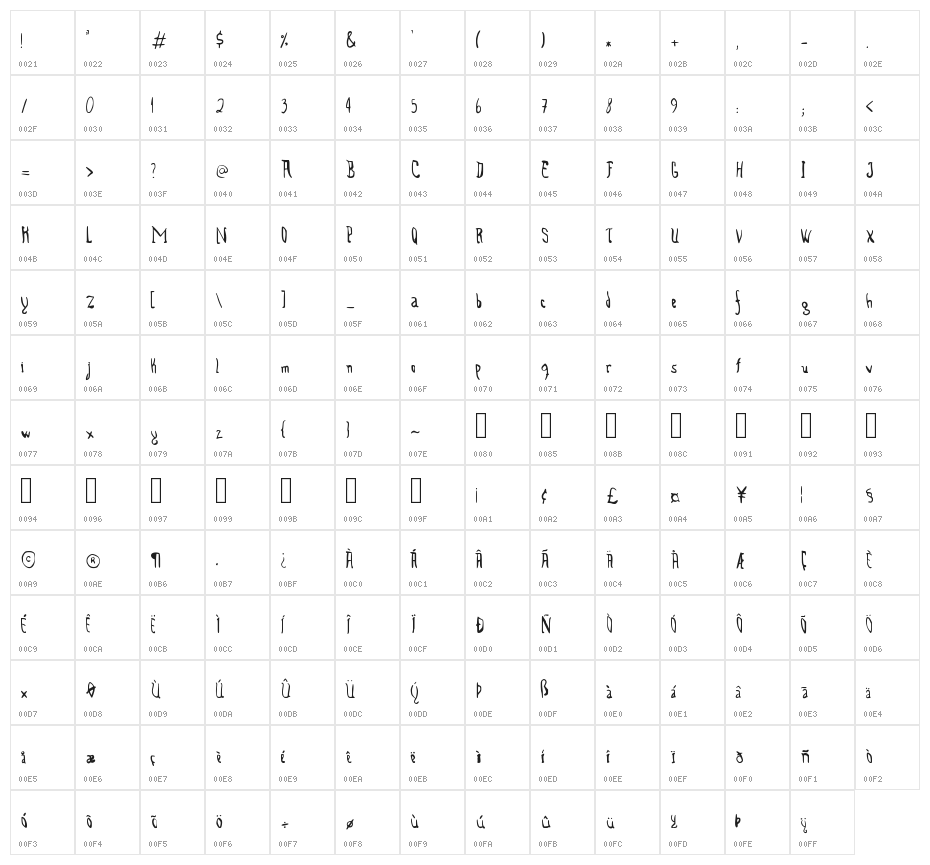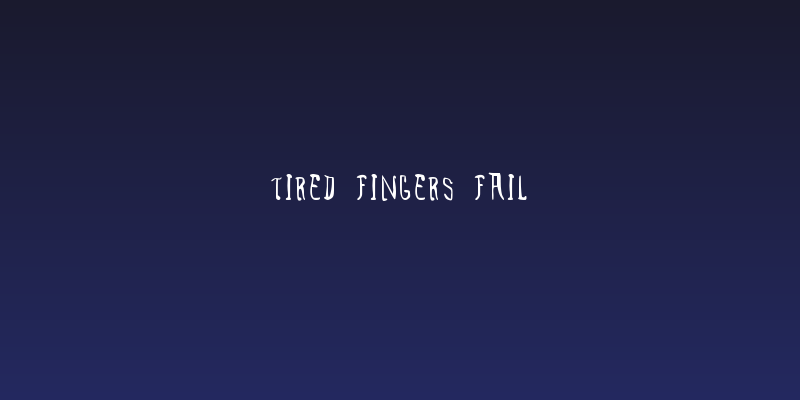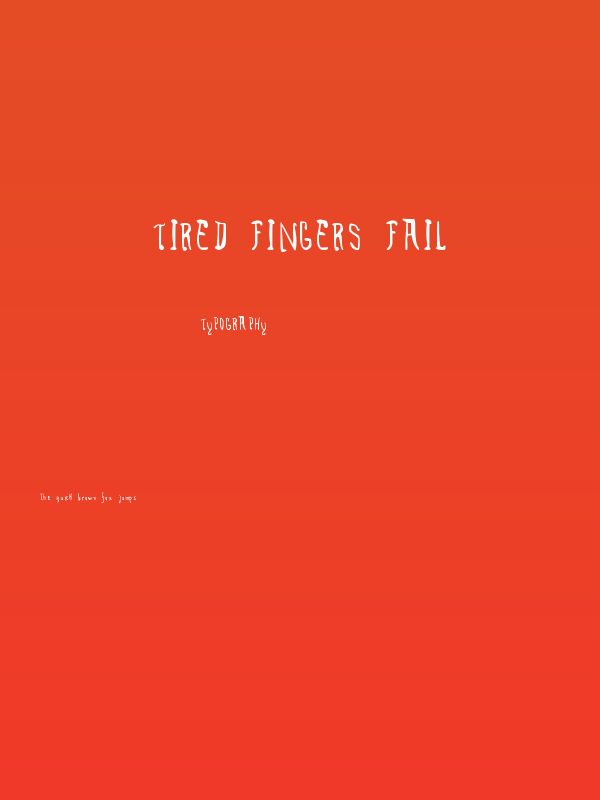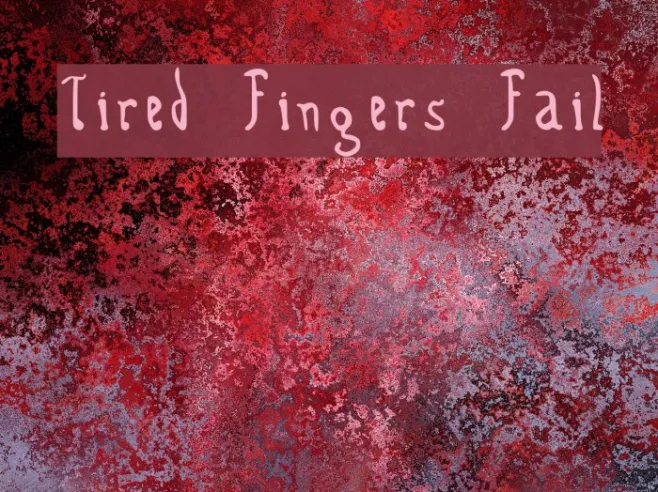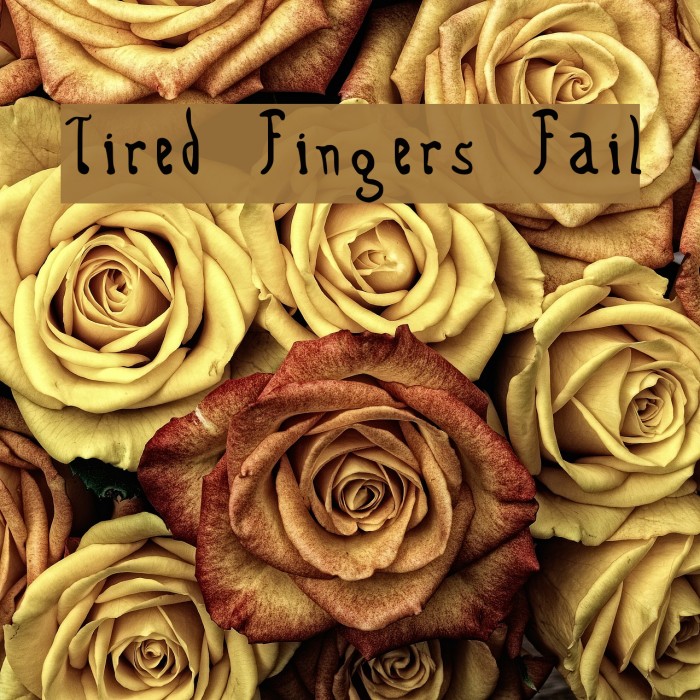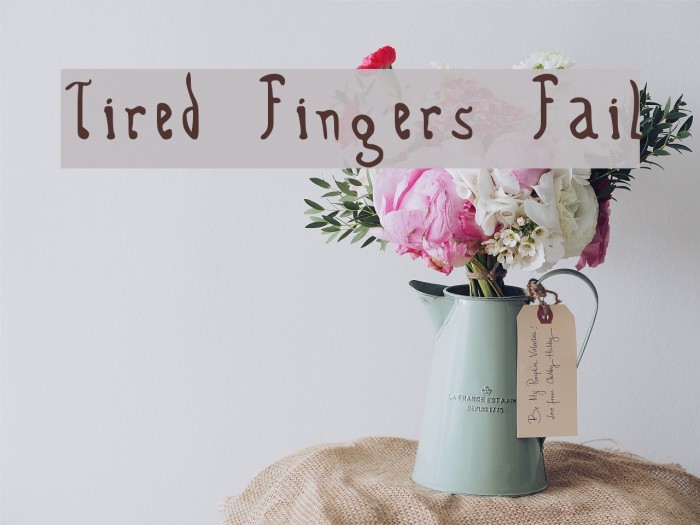
Tired Fingers Fail Font
Tired Fingers Fail Description
This font features a whimsical and playful design, characterized by its uneven and hand-drawn appearance. The letters have a quirky, irregular shape, giving them a unique personality. The strokes vary in thickness, adding to the font's charm and making it stand out. The uppercase and lowercase letters maintain a consistent style, with some letters having exaggerated curves or angles. The numerals and special characters follow the same playful theme, making the font suitable for creative and informal projects.
| Use Case | Headlines, Logos, Creative projects |
| Proposed Projects | Ideal for children's books, playful branding, greeting cards, and creative posters. |